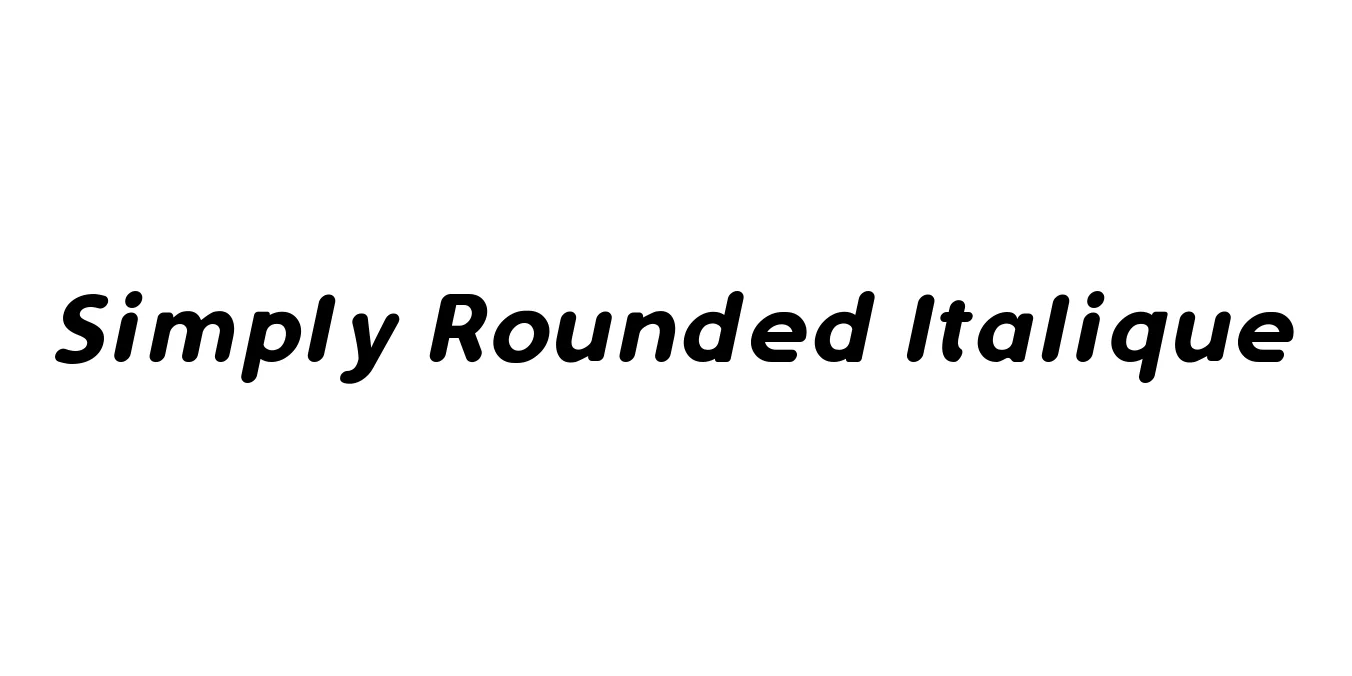
Simply Rounded Italique
Designed by Geronimo
| Category | Rounded Sans Serif |
| Designer | Geronimo |
Simply Rounded Italique is a contemporary sans-serif typeface characterized by its soft, circular terminals and geometric structure. This italic variant introduces a dynamic sense of motion to the original design, blending a friendly, approachable aesthetic with a professional lean. The typeface is engineered for high legibility, making it an excellent choice for modern digital interfaces and printed materials alike.
Originally designed to bridge the gap between technical precision and organic warmth, Simply Rounded Italique excels in display settings. Its clean lines and consistent stroke widths ensure that it remains clear even at smaller sizes, while its distinct rounded personality shines in large-scale headlines. This font has become a favorite among designers seeking a versatile, modern look for branding and user experience projects.
Simply Rounded Italique Best Uses
Ideal for logos and brand identities that require a friendly yet professional tone.
Perfect for navigation bars, buttons, and clean headers.
Works well in UI elements where readability and soft aesthetics are prioritized.
Great for promotional banners and social media graphics.